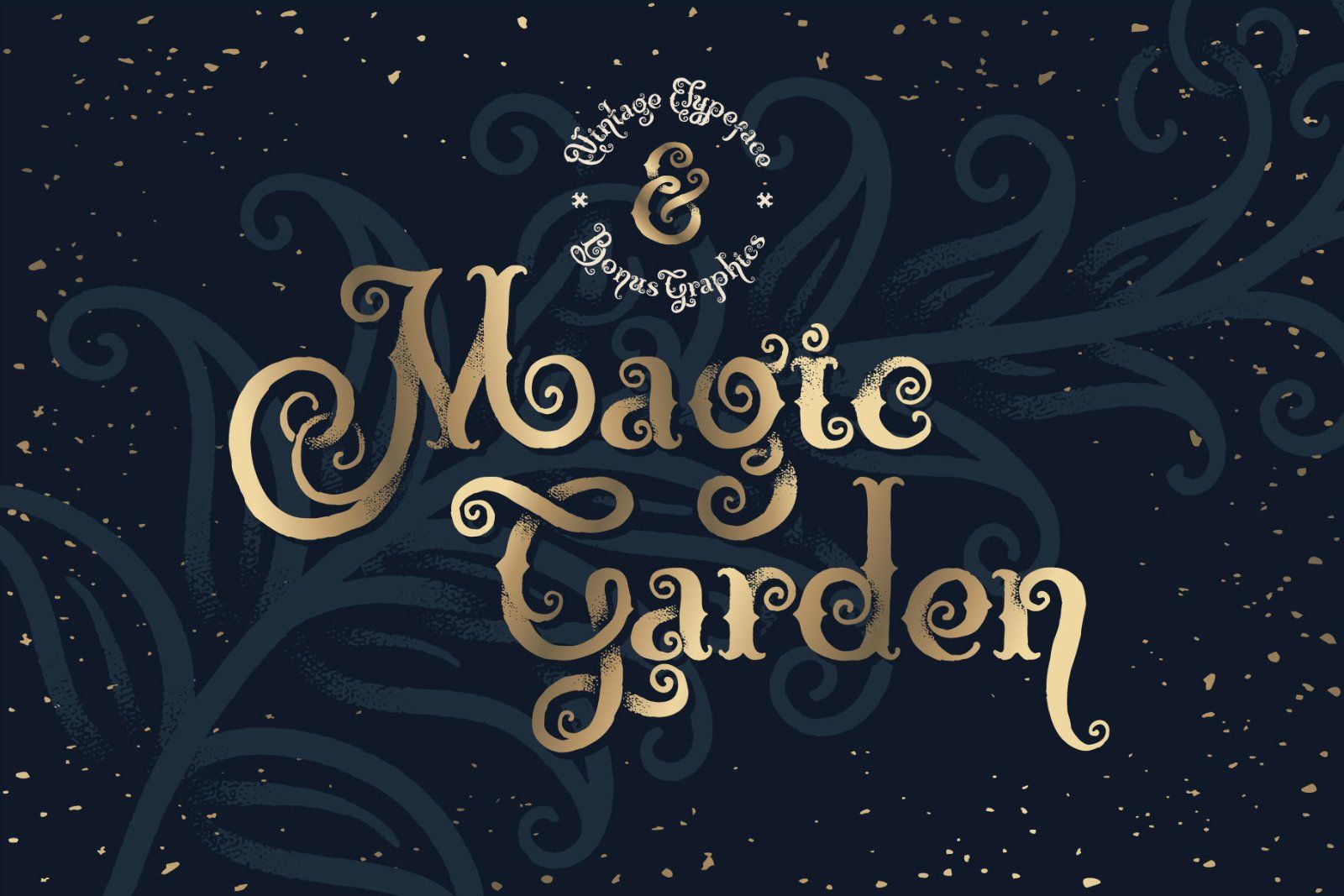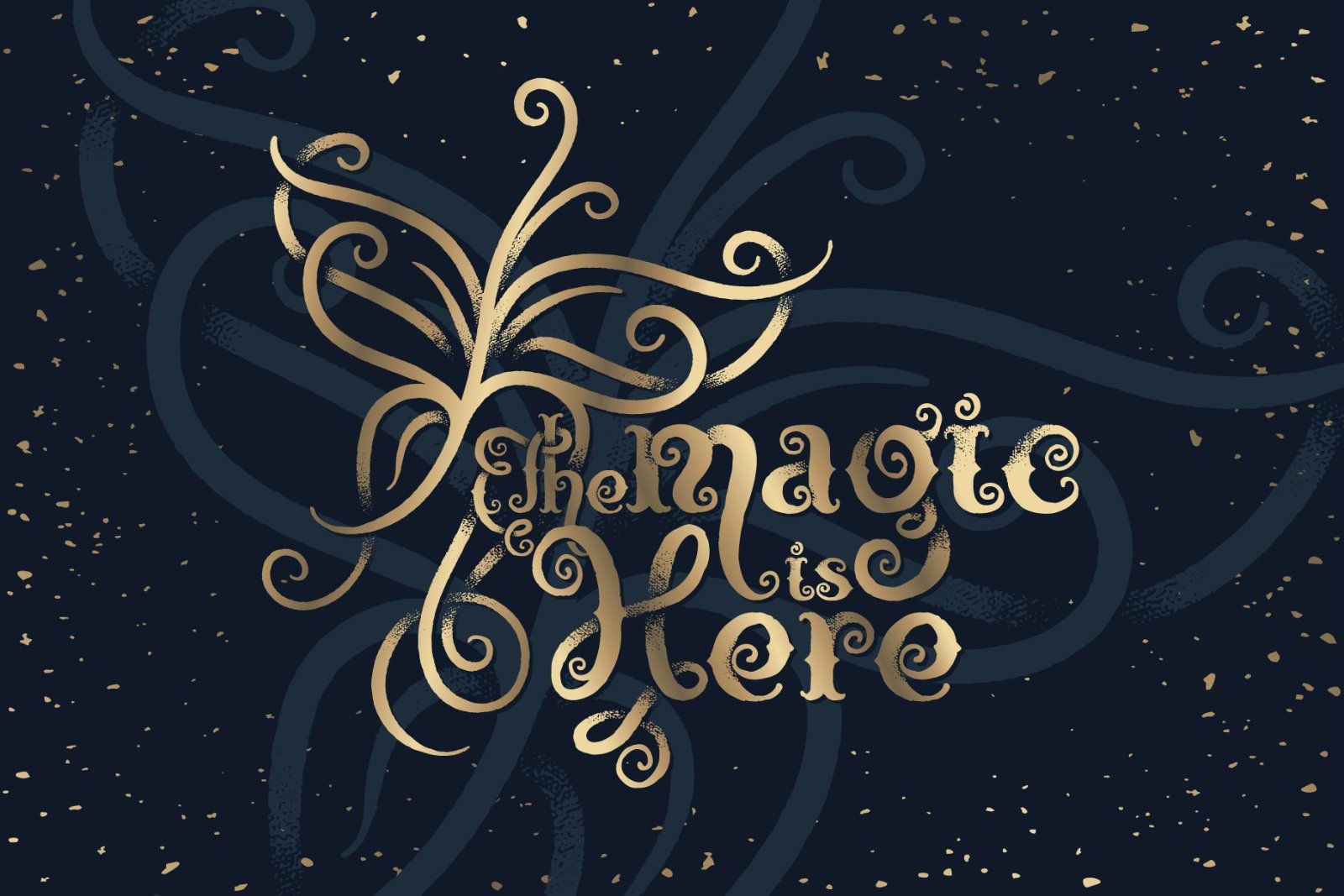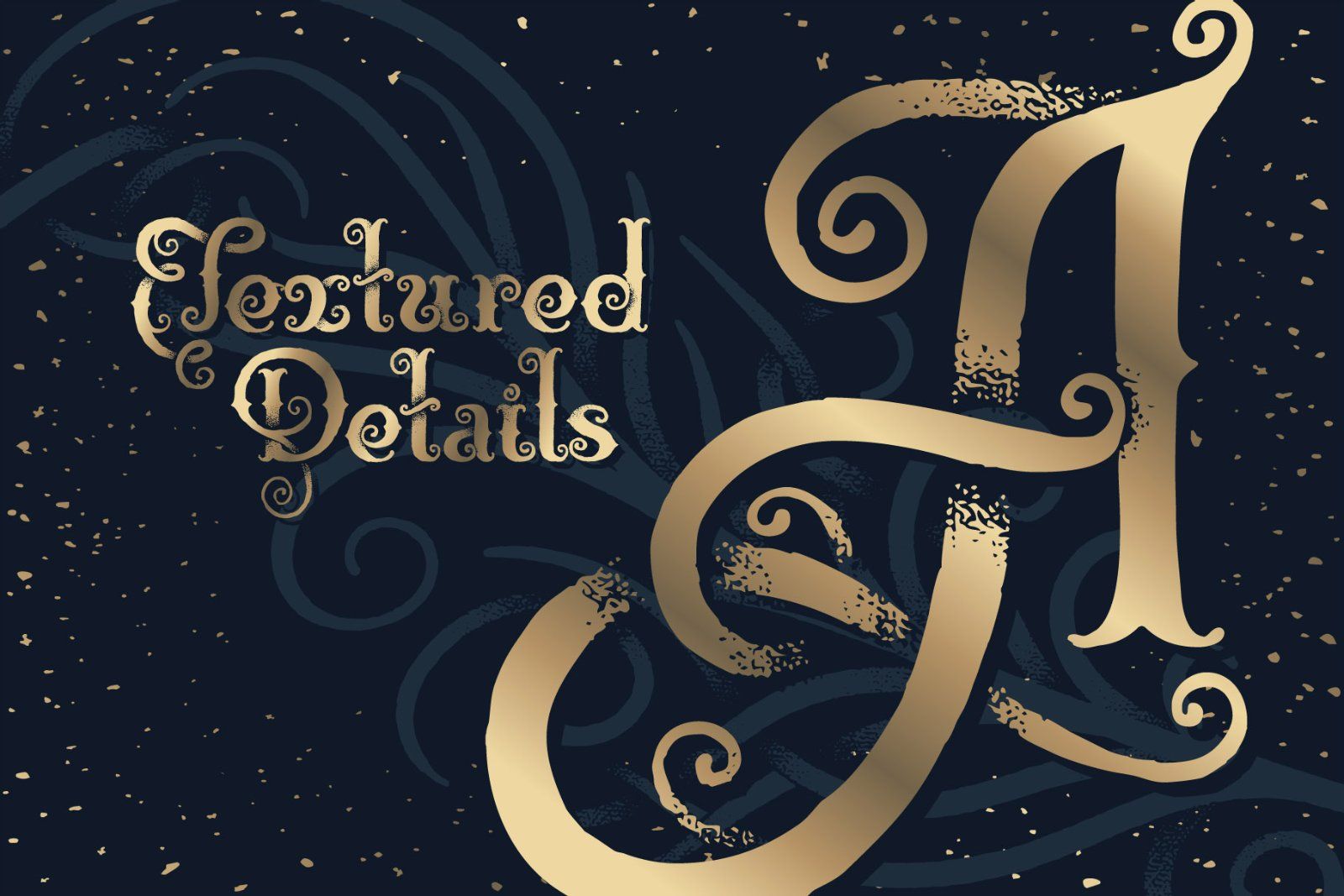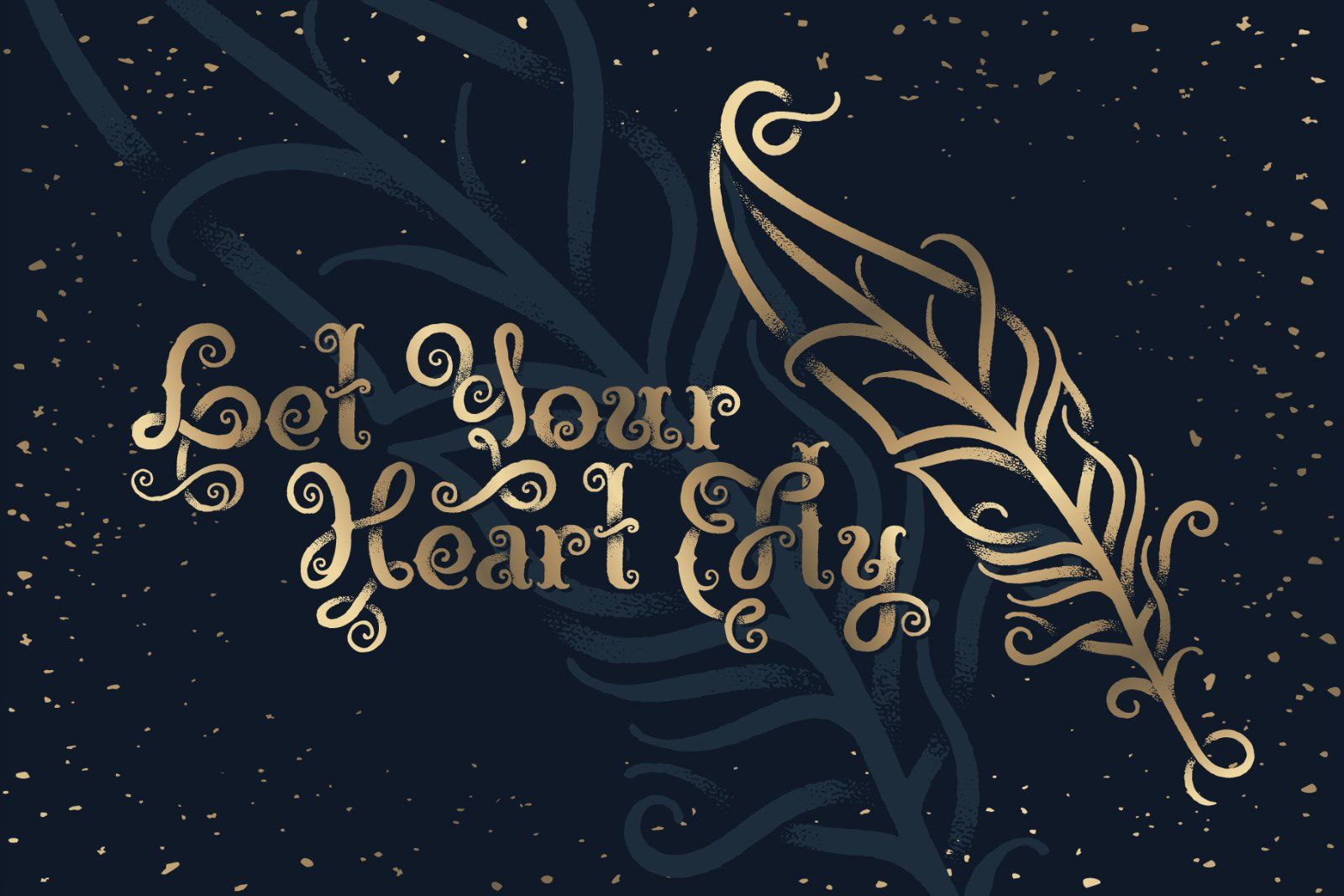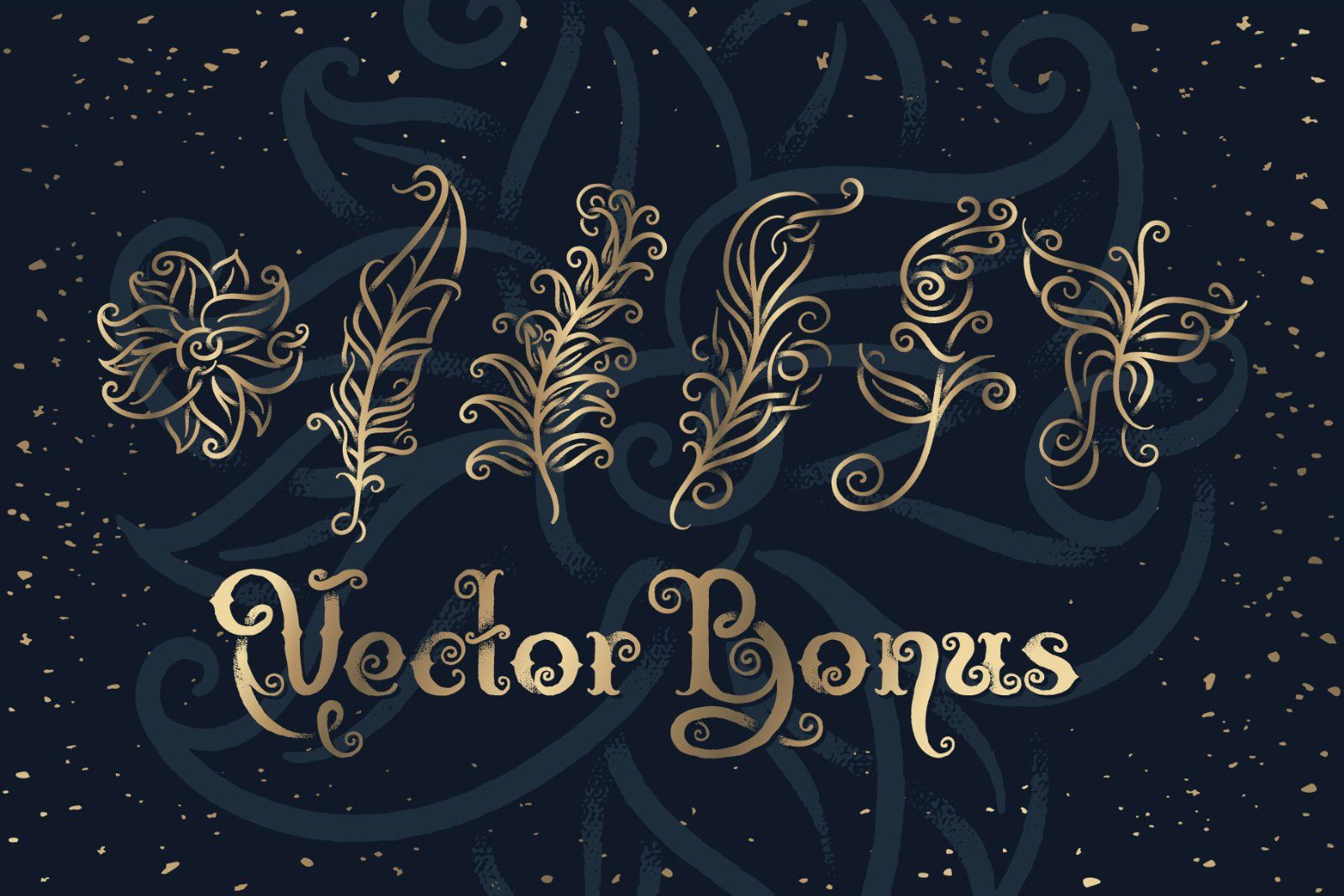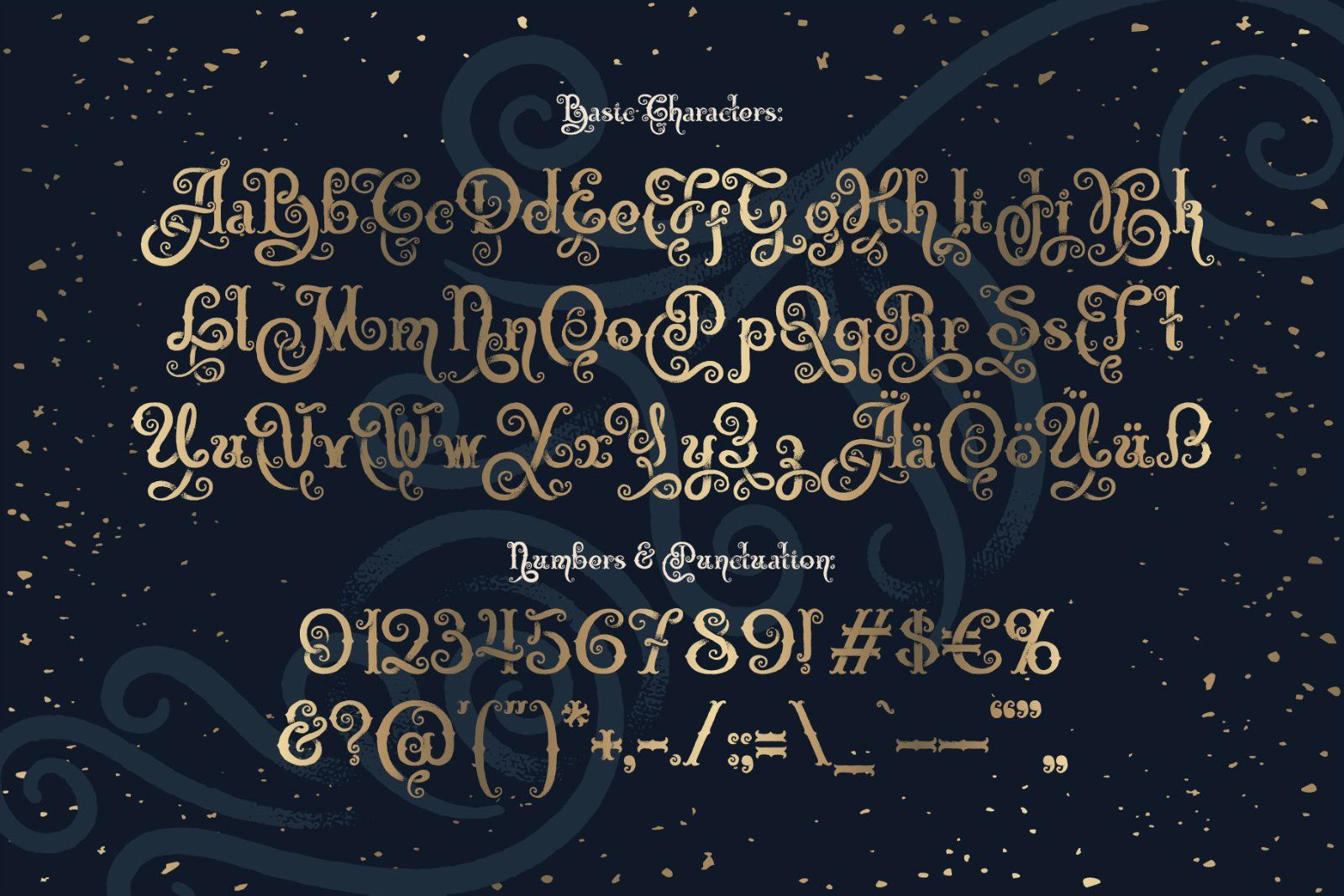
Hi! Introducing a decorative typeface named "Magic Garden". It has a beautiful swirls and textured grain effect that brings a fairy tale mood to it. Also included a nice bonus with 6 vector illustrations of stylized nature objects (5th screenshot). All available font characters you can see on the 6th screenshot.